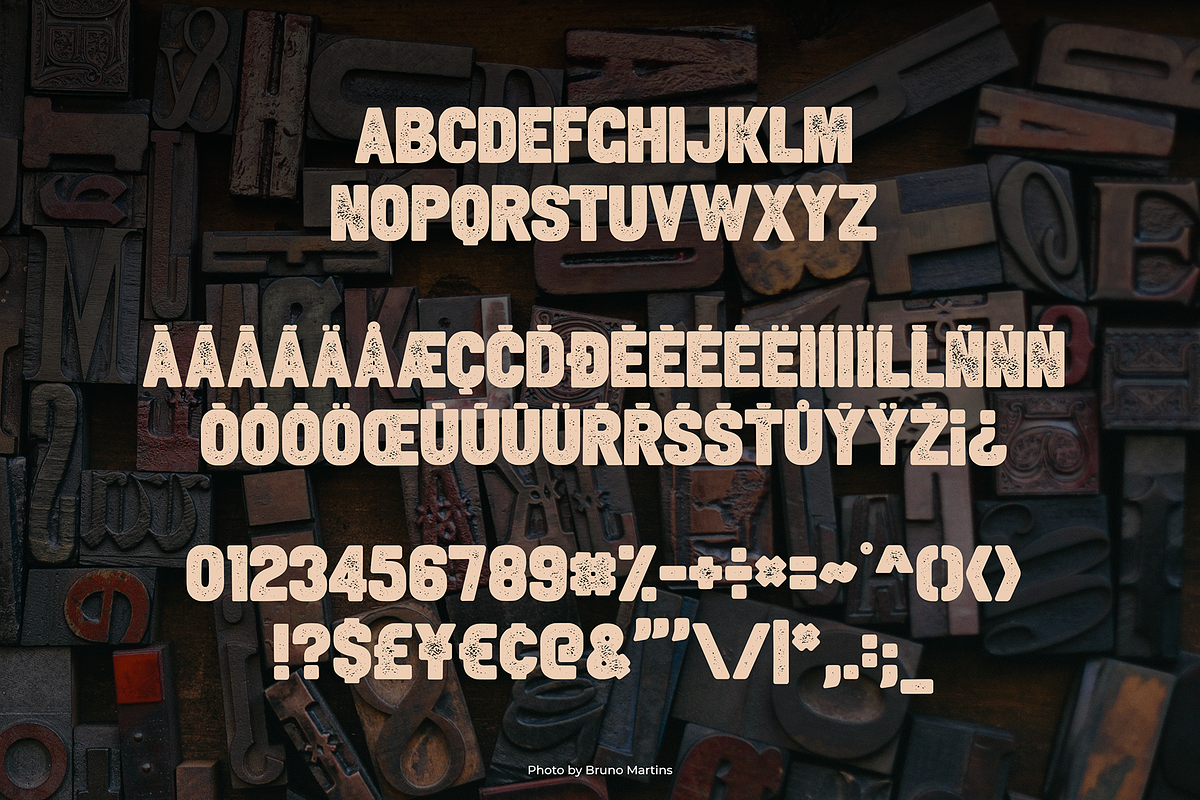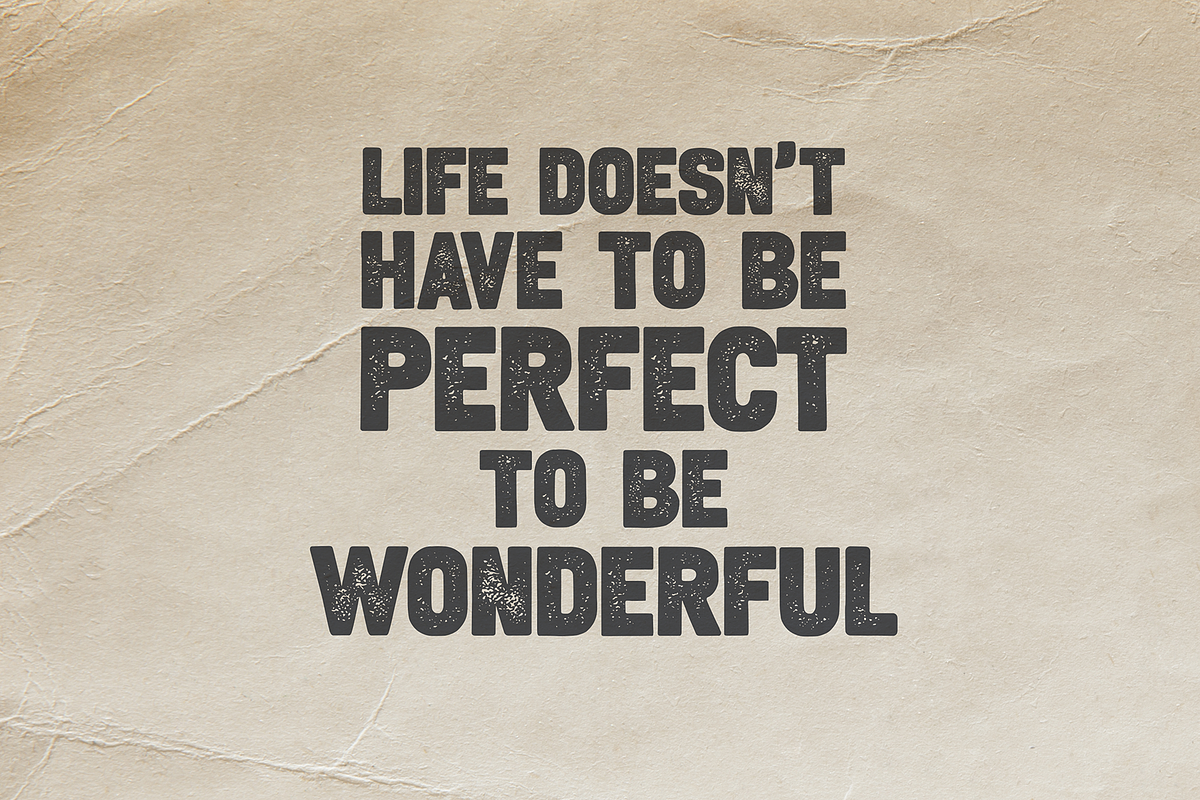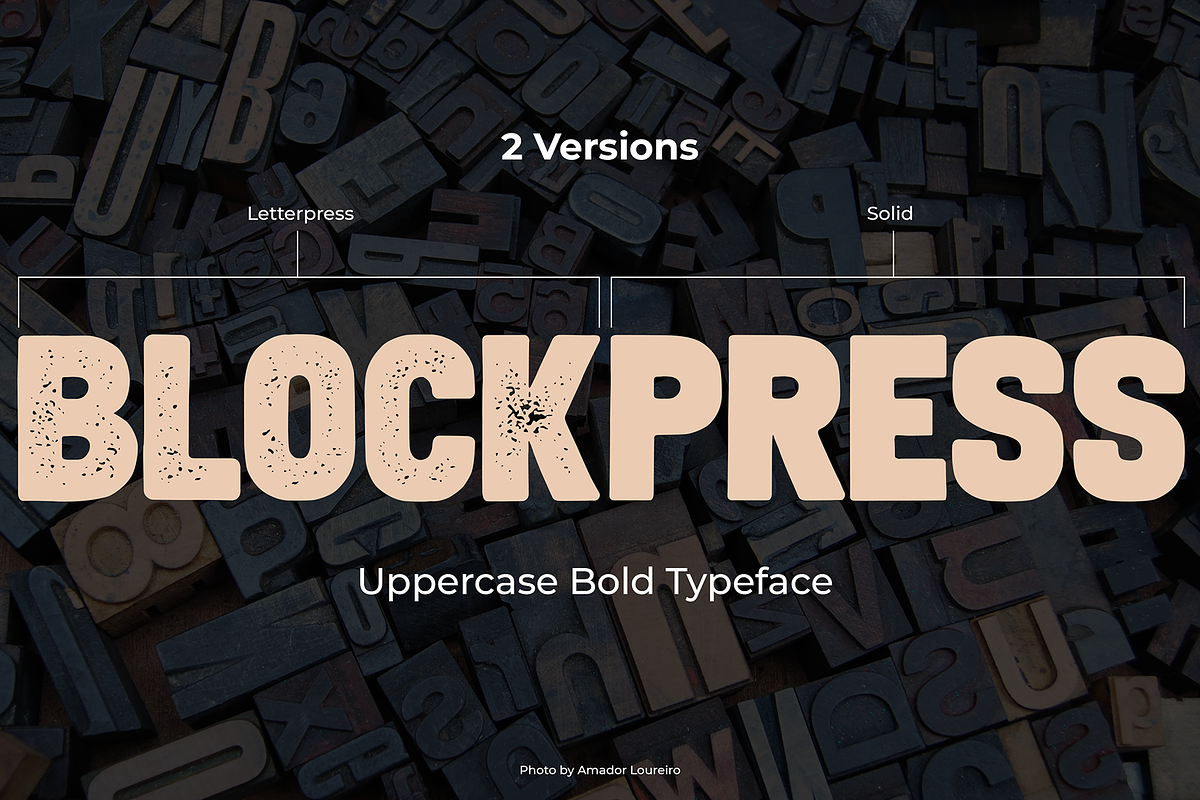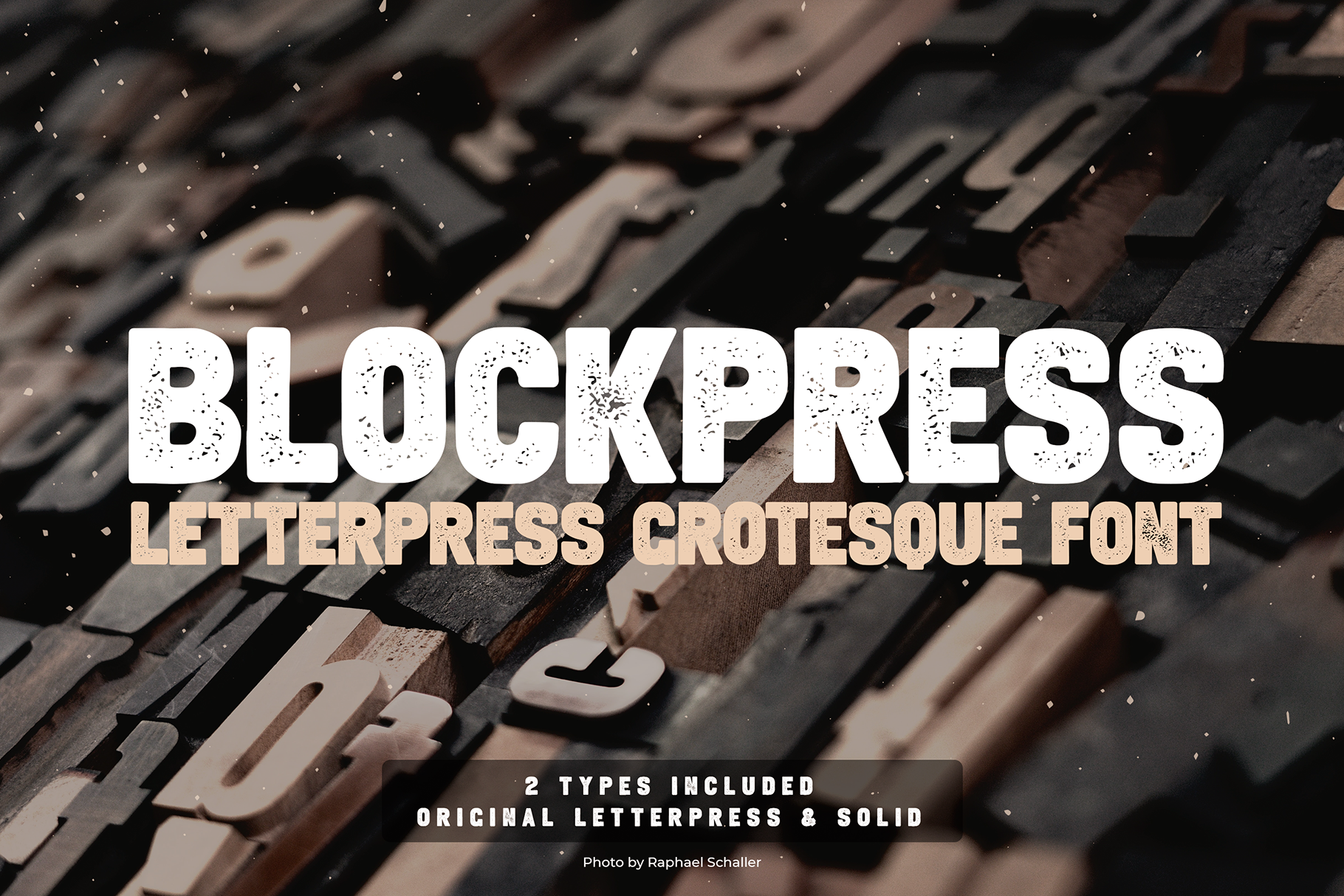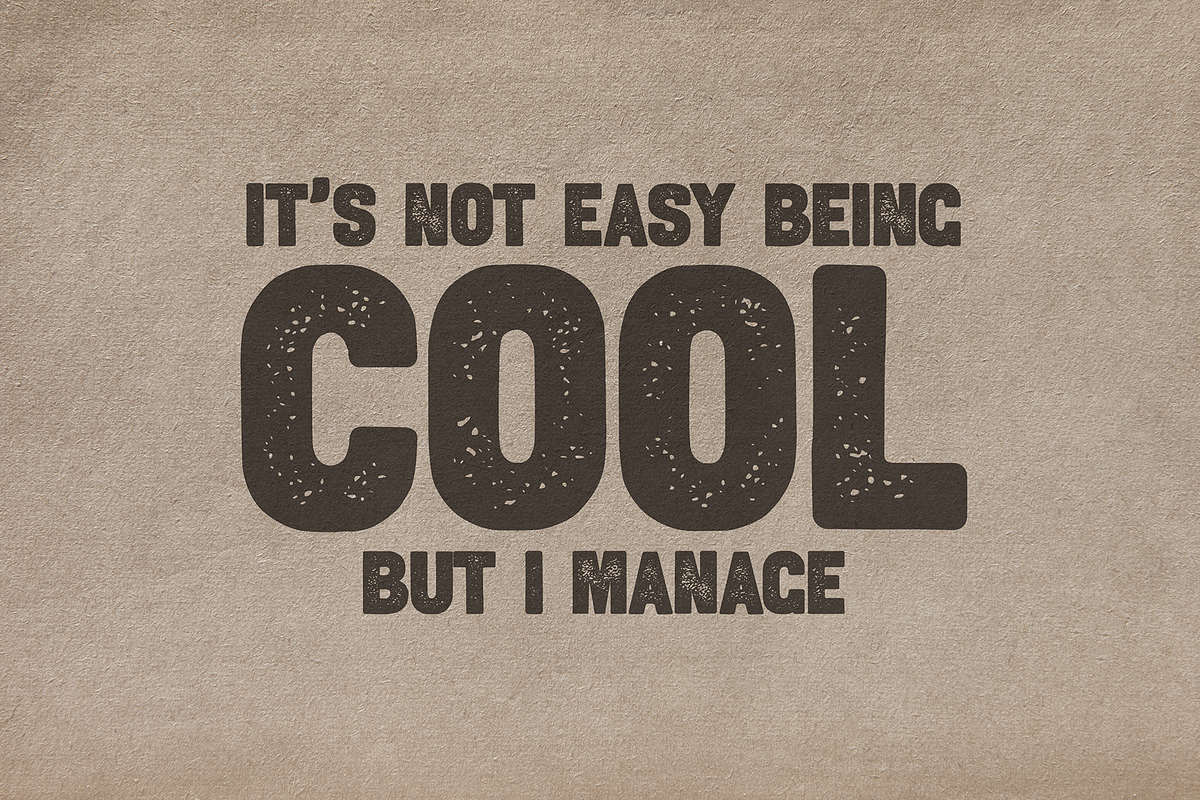
BlockPress Grotesque Font
BlockPress is an uppercase sans-serif letterpress grotesque type font. It is a vintage looking decorative bold distressed typeface great mainly for titling, headings.
BlockPress font was designed by Mint Pixels and comes in two styles - letterpress and solid, both in OTF file format.